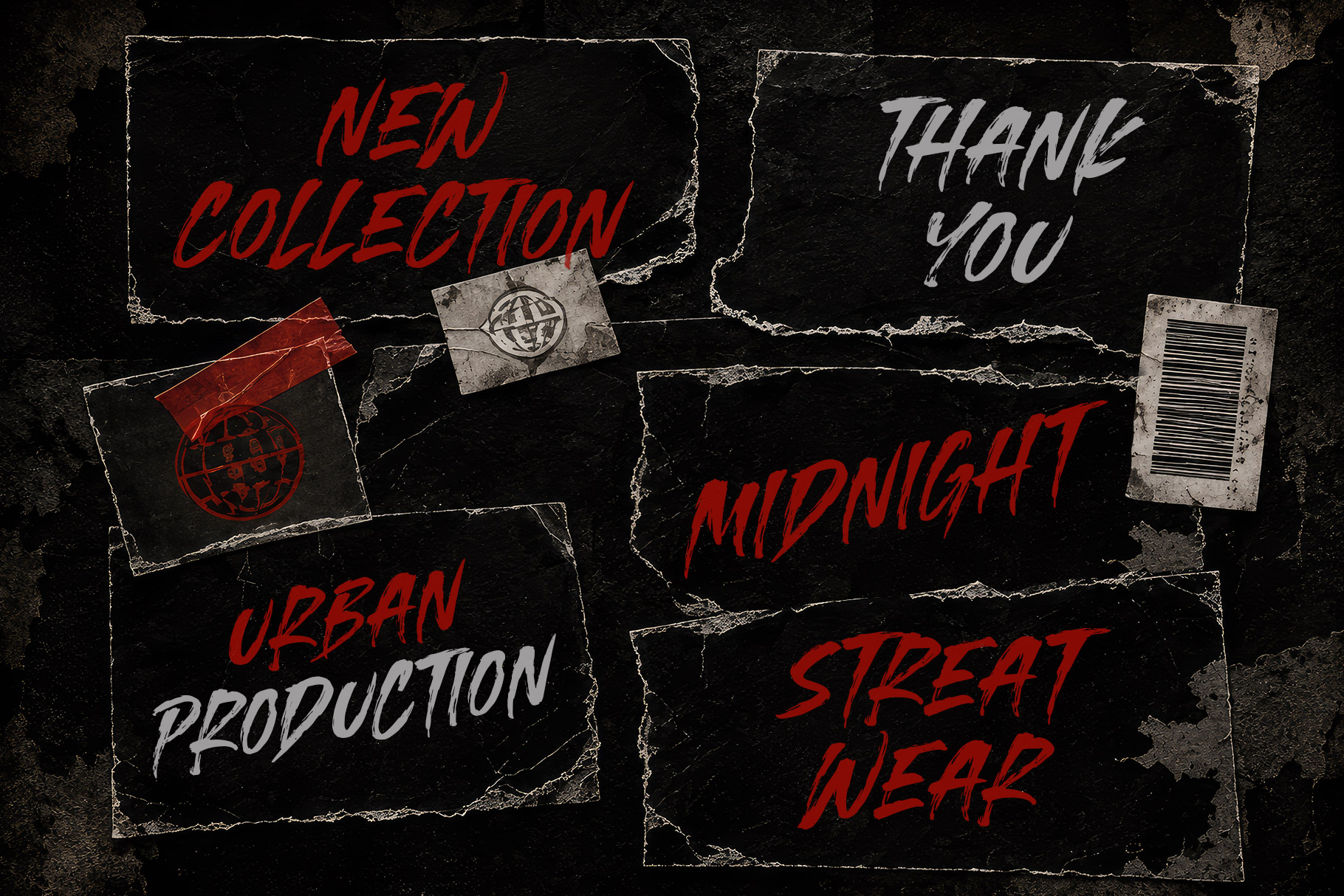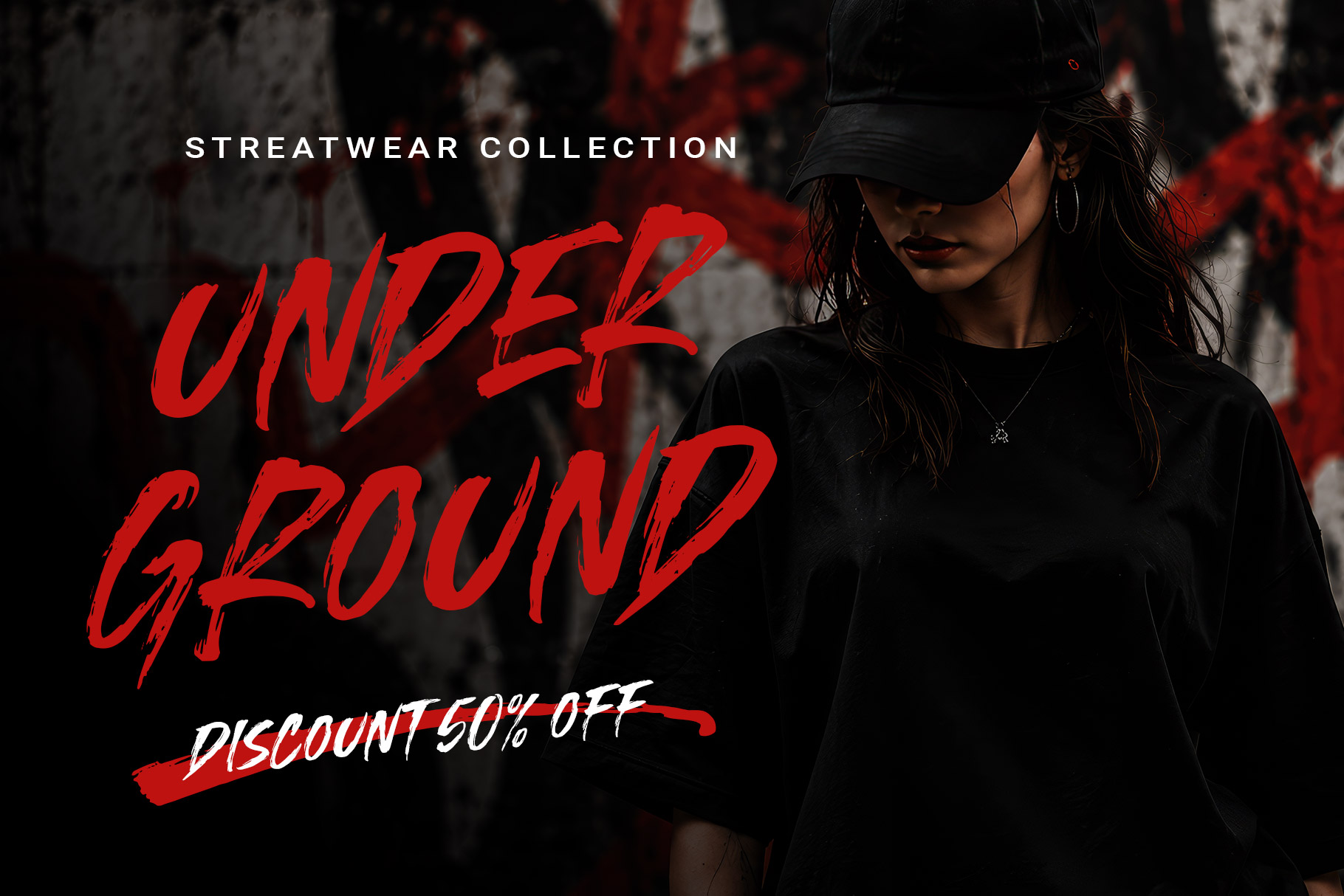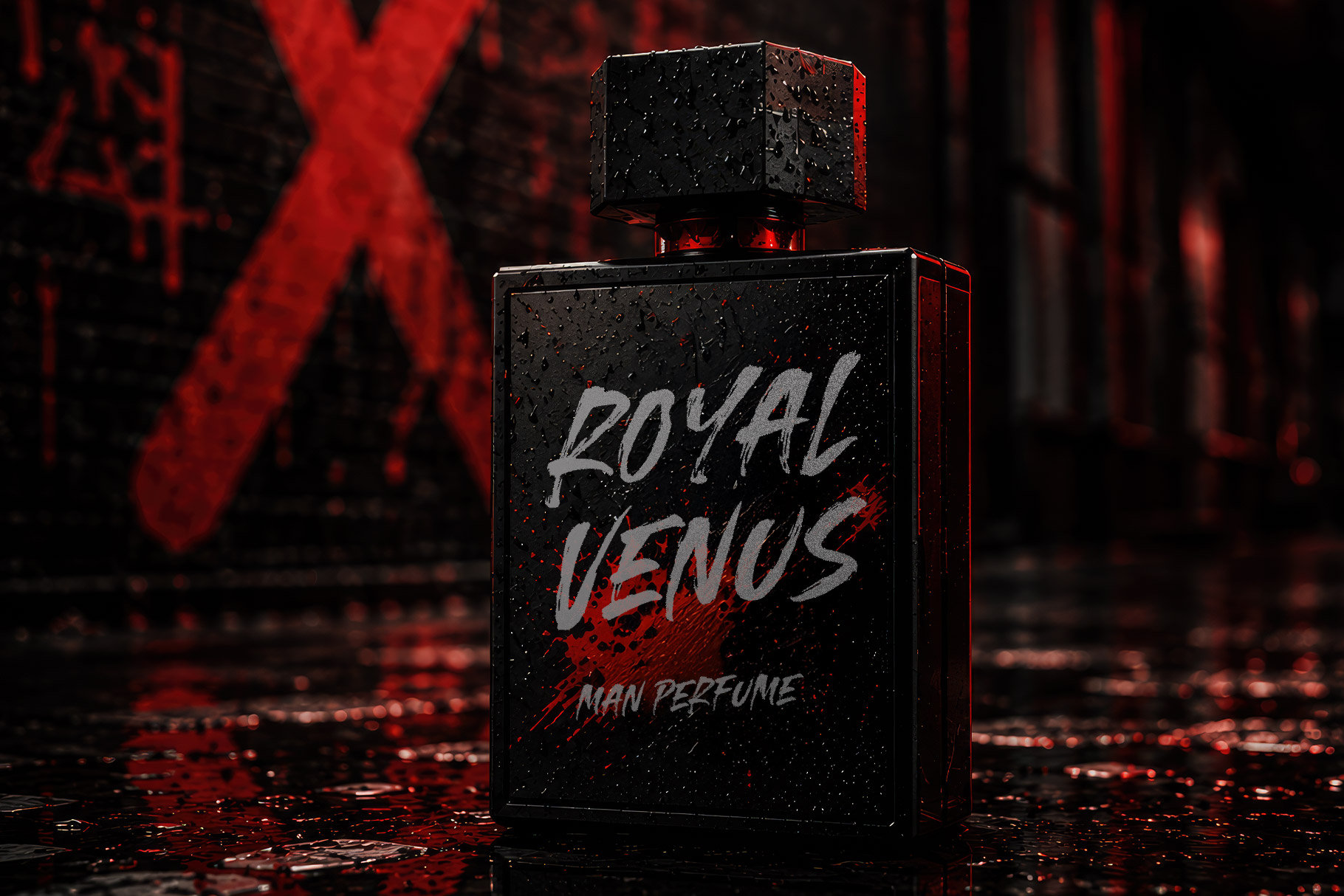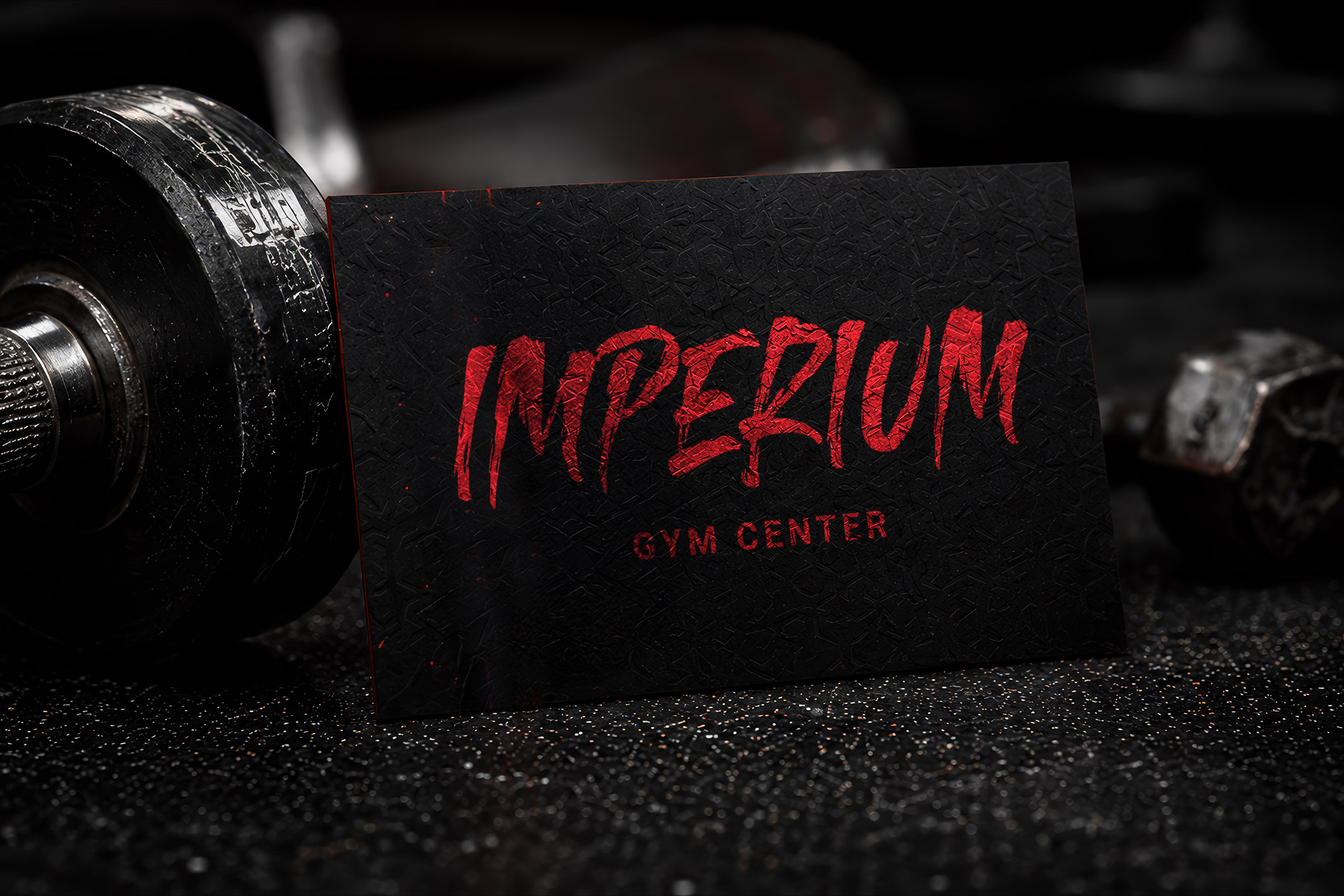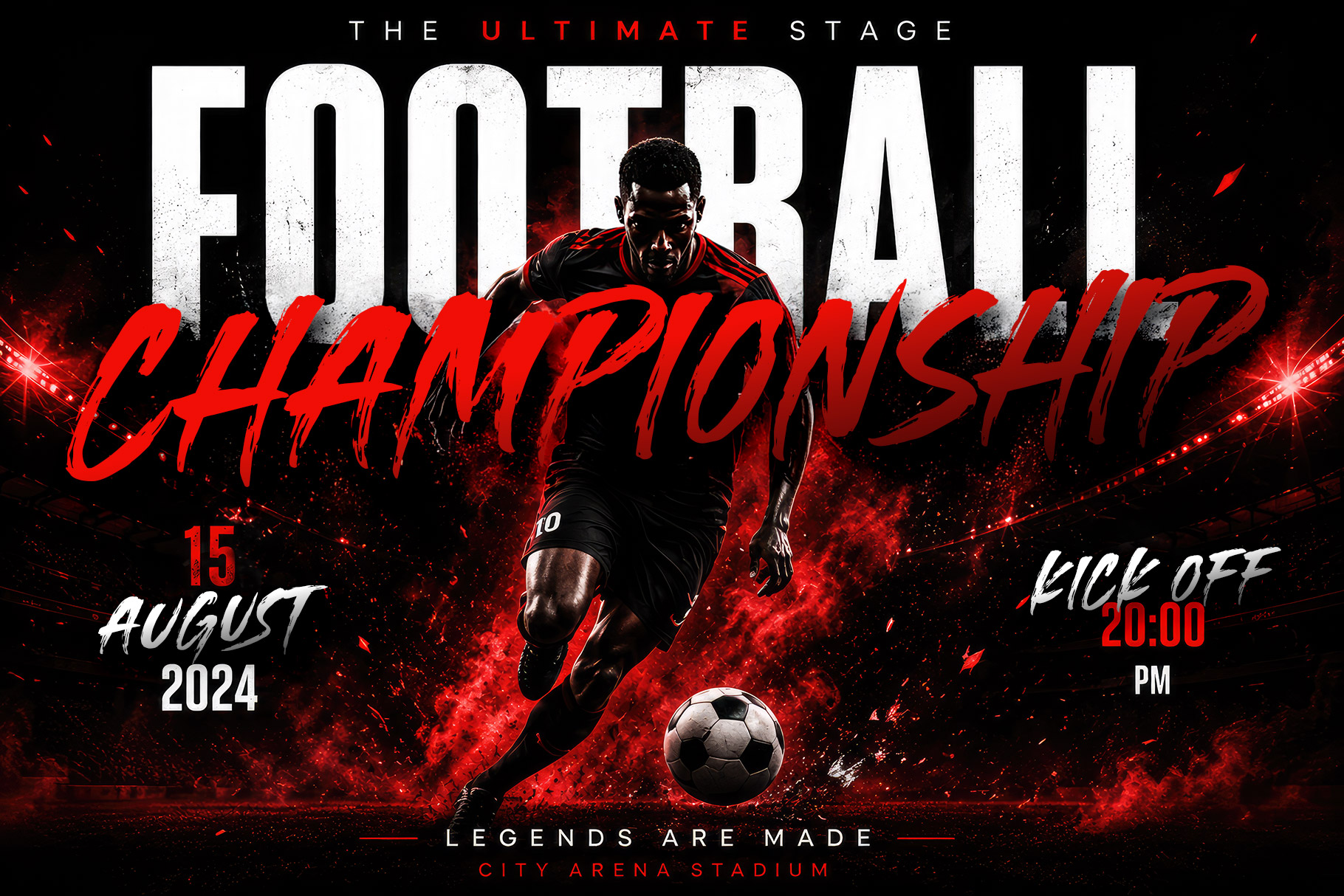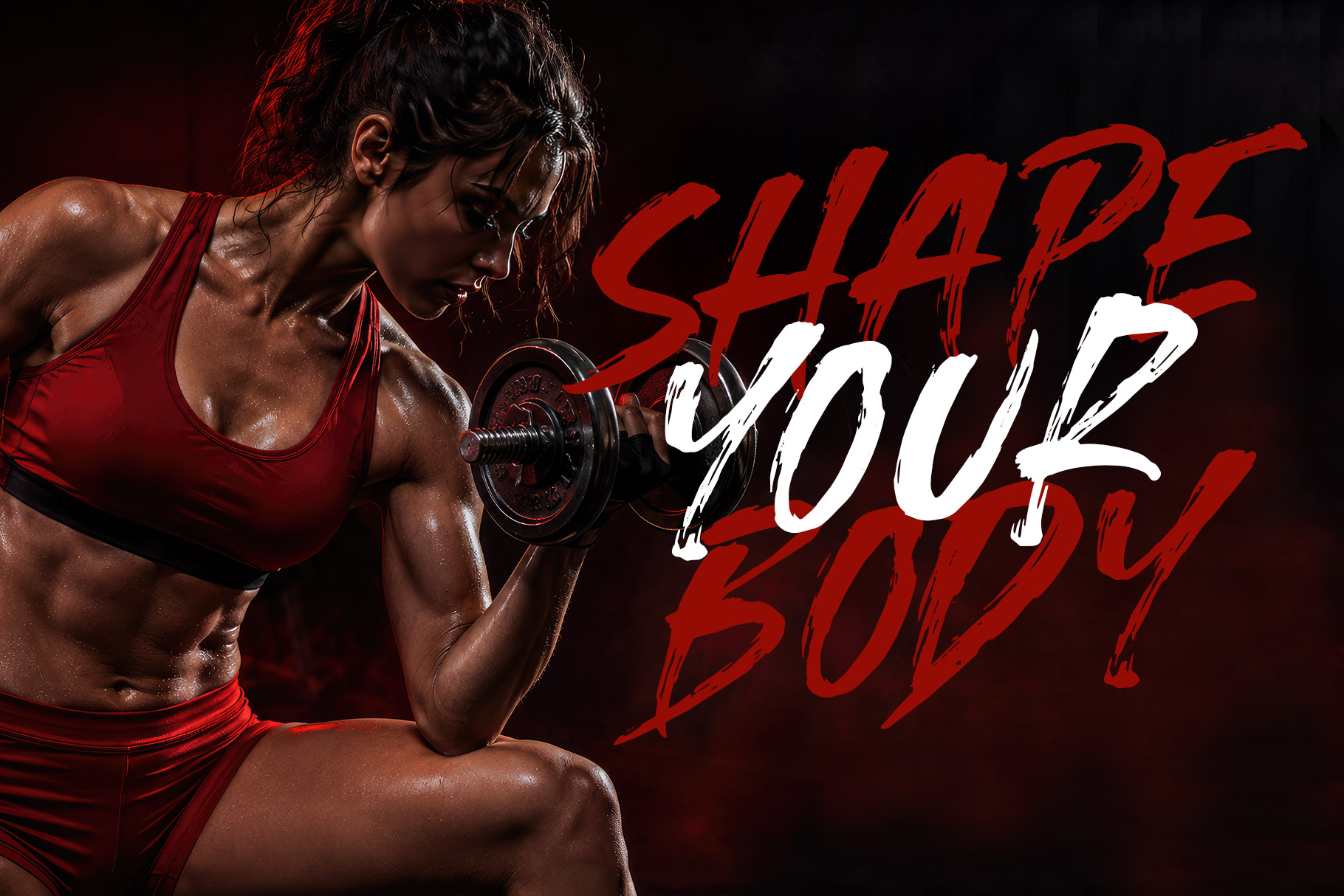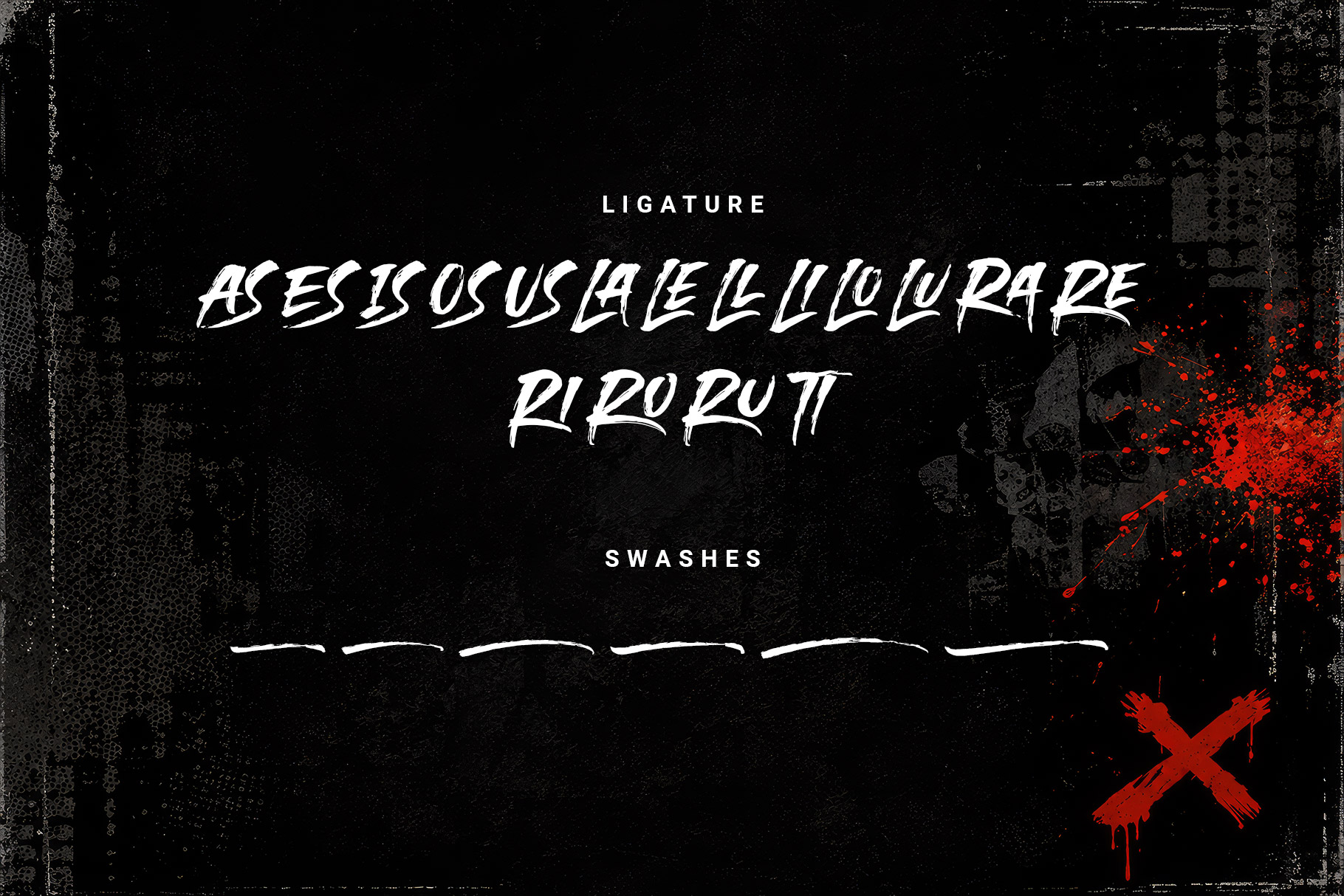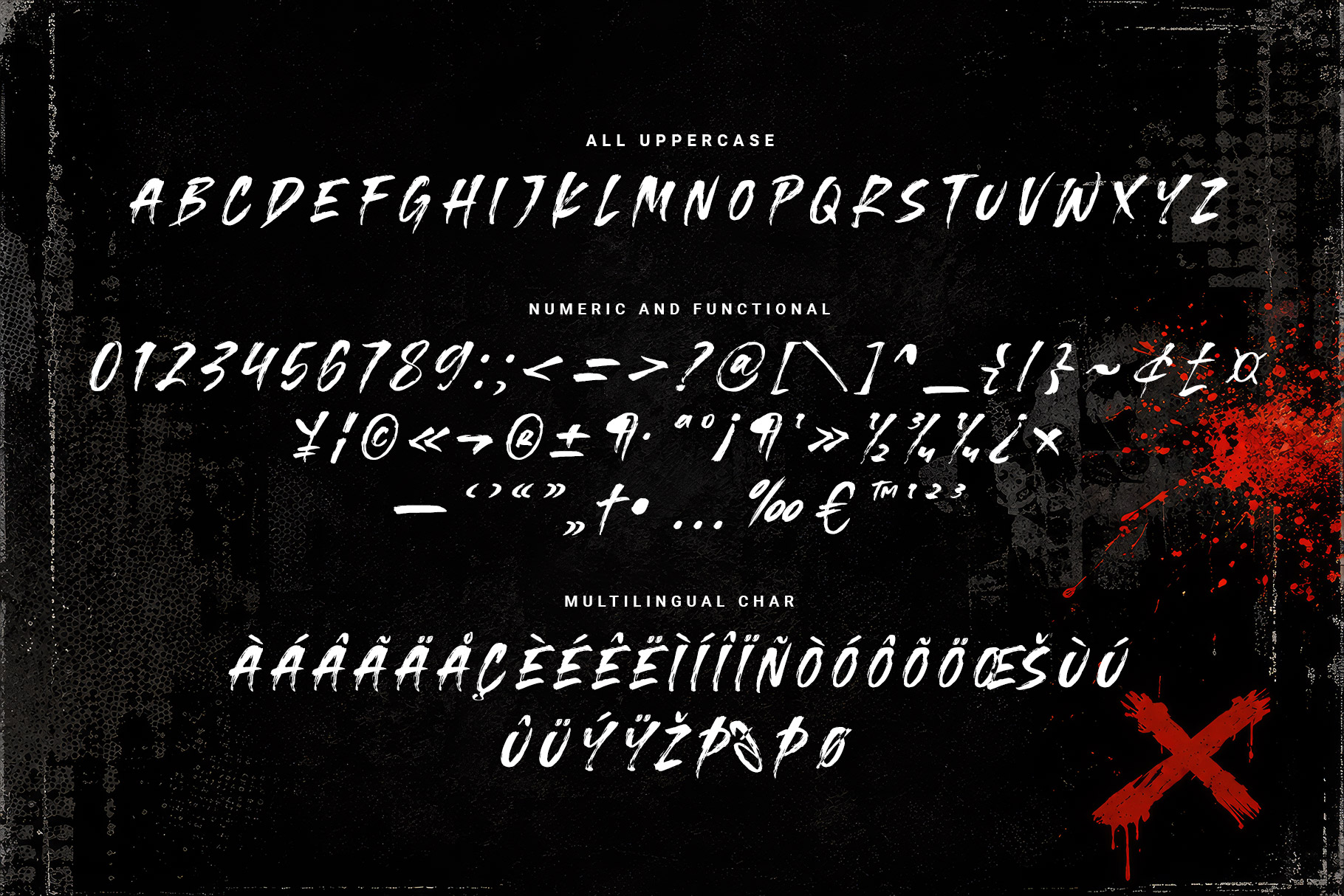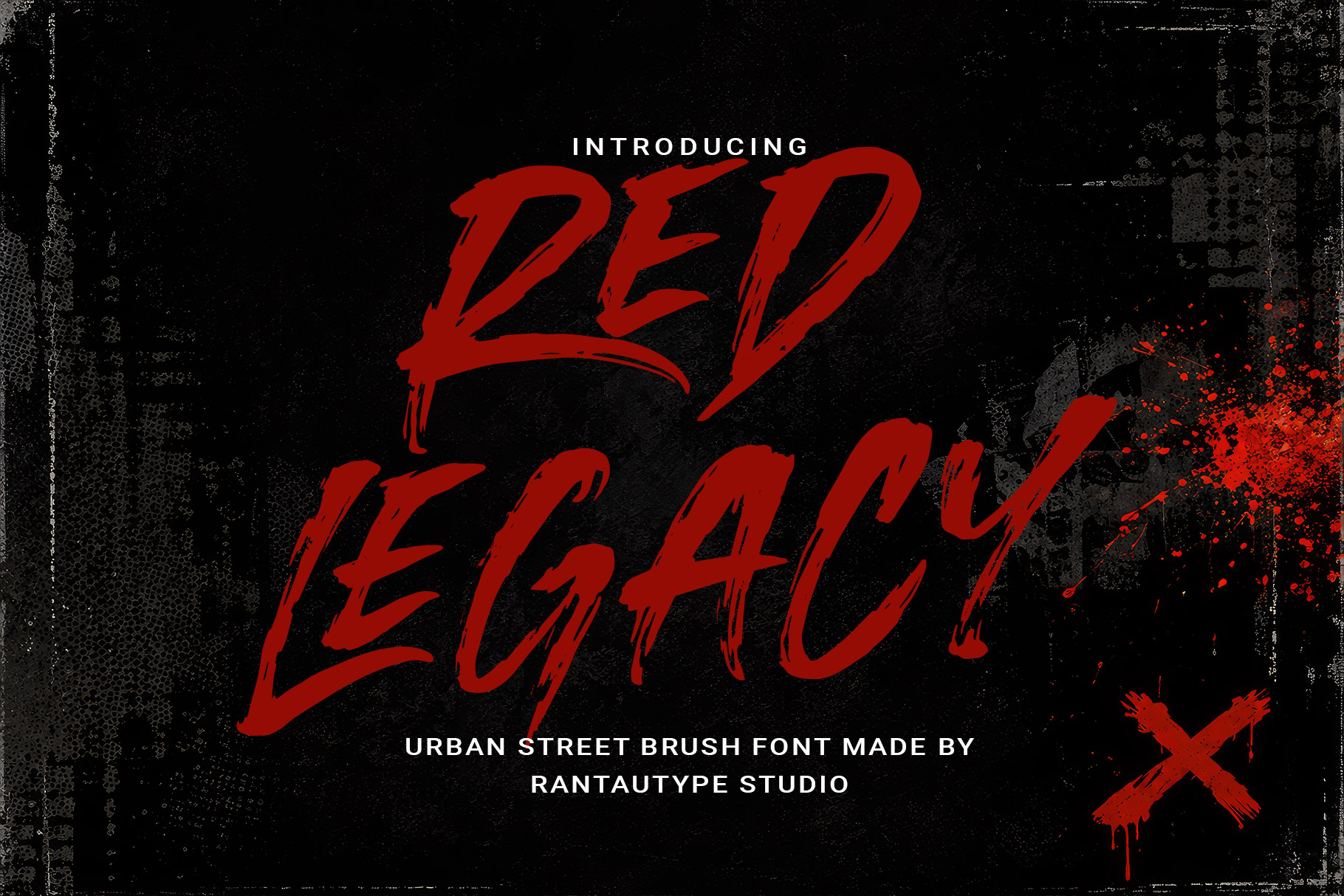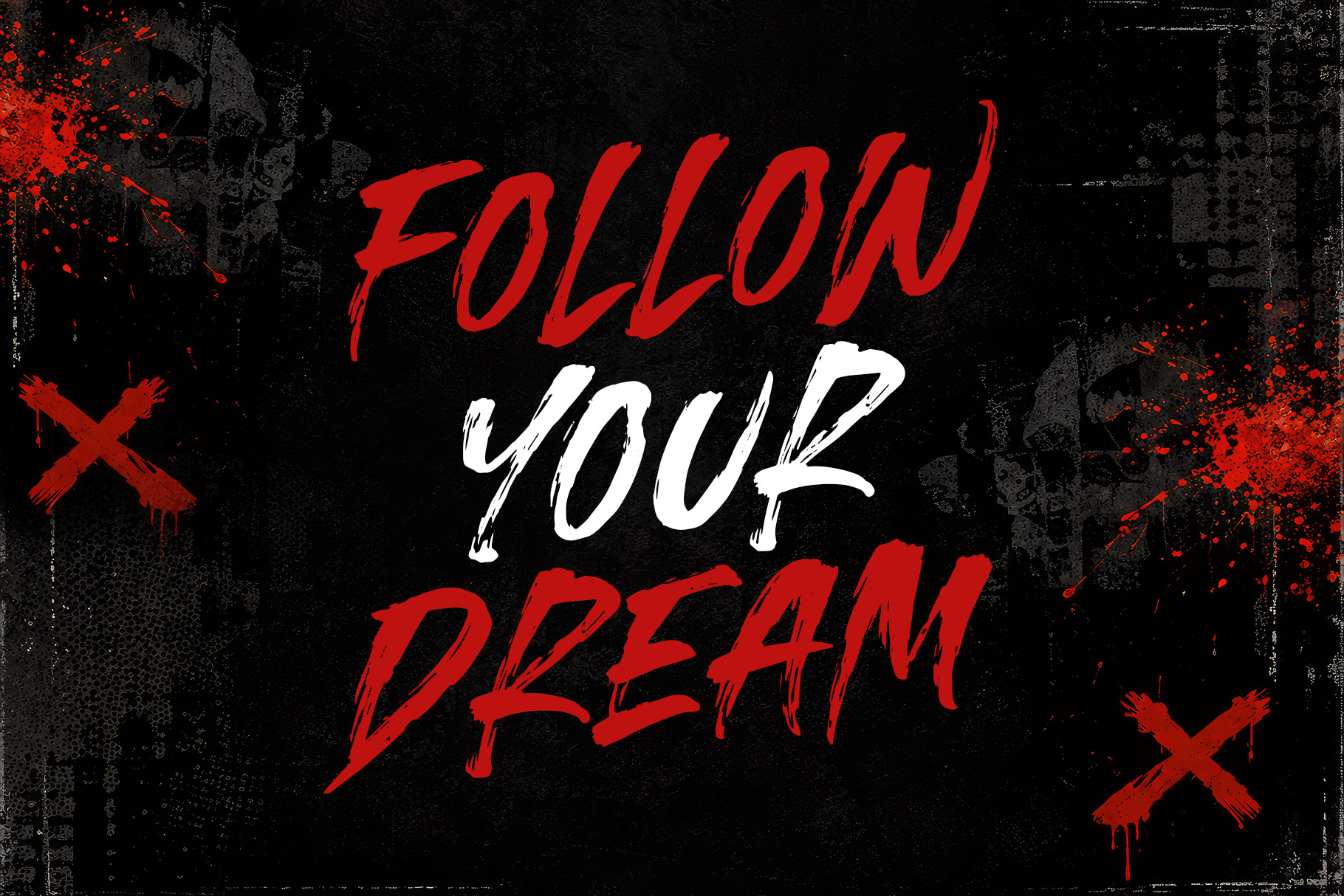
Red Legacy
Red Legacy is brush font with an aggressive hand-painted brush energy with a strong underground street identity. Red Legacy is a perfectly choice for any creative endeavor, creating, modern, lifestyle design such as logotype, title, cover, branding, display and magazine, social media posts, advertisements, printed quotes, product packaging, corporate brand, product designs, labels, photography, watermarks, special events and any other project with urban touch.
Red Legacy Urban Street Brush Font